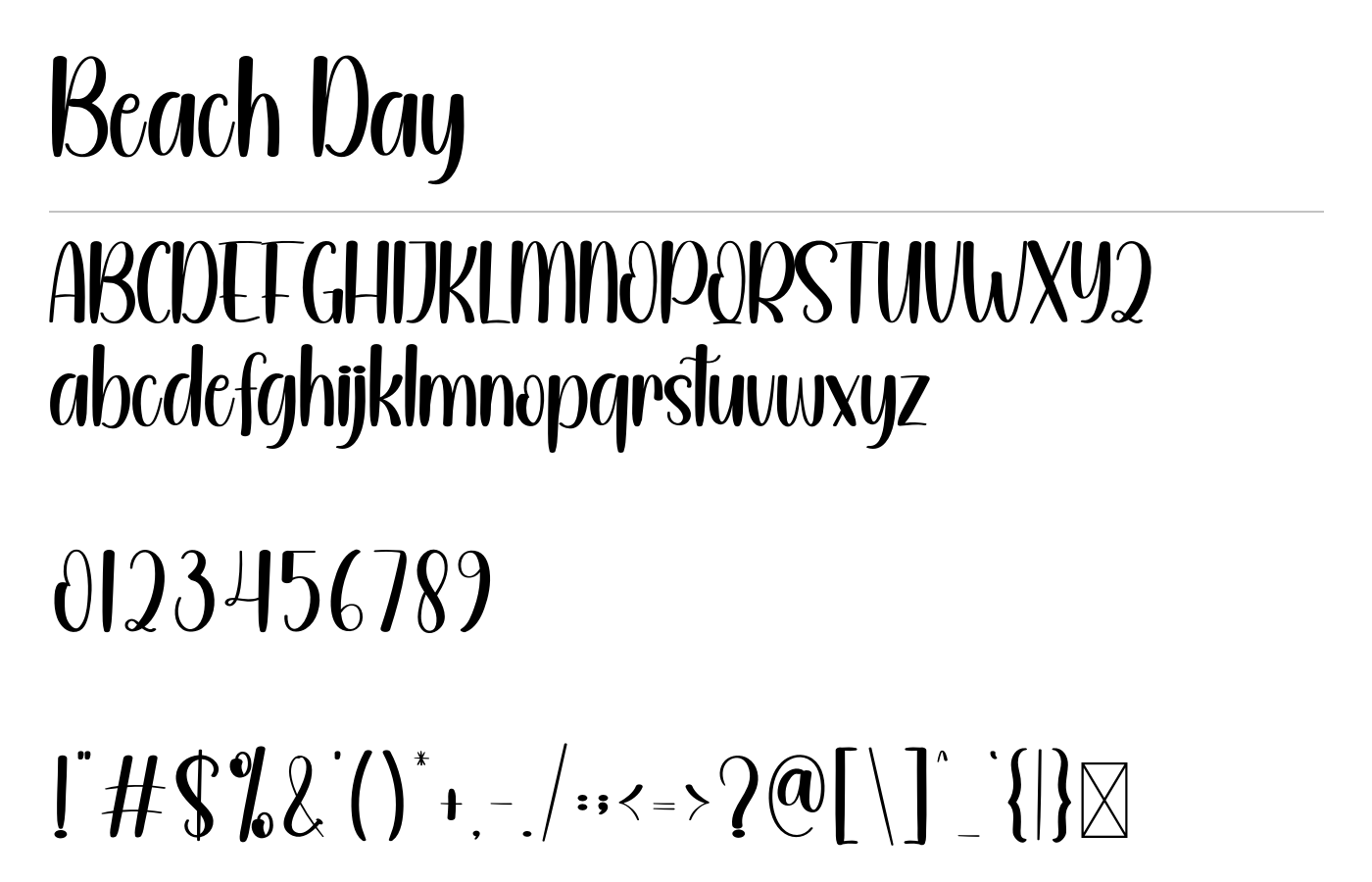
Beach Day is a playful, tall script font with a casual and friendly vibe, featuring slender, slightly uneven strokes that give it a hand-drawn feel. Its unique letterforms and lively curves make it perfect for fun, informal designs such as summer-themed branding, invitations, or eye-catching headlines. This font works well where a warm, approachable personality is desired, especially in creative and lifestyle contexts.
Beach Day Font